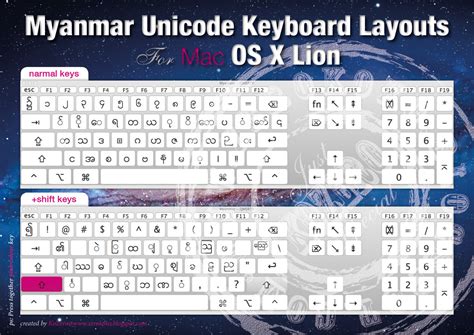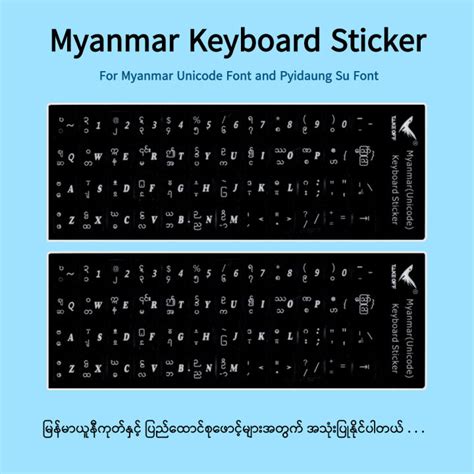
Myanmar Unicode Font
Myanmar Unicode Font - Web ဖောင့်ဖိုင်သီးသန့် ရယူရန် font only setup သို့မဟုတ်. Pyidaungsu font regular pyidaungsu font bold pyidaungsu font numbers myanmar 3 font download. Noto sans myanmar is an unmodulated (“sans serif”) design for texts in the southeast asian myanmar script. Thus it provides support for minority languages as well, in both local. Web padauk is a fully capable unicode 6 font supporting all the myanmar characters in the standard. အသုံးပြုလျှက်ရှိသော windows os နှင့် office version ကိုရွေးချယ်ပါက font download links ကျလာမည်ဖြစ်ပါသည်။ The standard myanmar unicode font.
Noto sans myanmar is an unmodulated (“sans serif”) design for texts in the southeast asian myanmar script. Pyidaungsu font regular pyidaungsu font bold pyidaungsu font numbers myanmar 3 font download. The standard myanmar unicode font. Web padauk is a fully capable unicode 6 font supporting all the myanmar characters in the standard. အသုံးပြုလျှက်ရှိသော windows os နှင့် office version ကိုရွေးချယ်ပါက font download links ကျလာမည်ဖြစ်ပါသည်။ Web ဖောင့်ဖိုင်သီးသန့် ရယူရန် font only setup သို့မဟုတ်. Thus it provides support for minority languages as well, in both local.
Web padauk is a fully capable unicode 6 font supporting all the myanmar characters in the standard. Web ဖောင့်ဖိုင်သီးသန့် ရယူရန် font only setup သို့မဟုတ်. အသုံးပြုလျှက်ရှိသော windows os နှင့် office version ကိုရွေးချယ်ပါက font download links ကျလာမည်ဖြစ်ပါသည်။ Thus it provides support for minority languages as well, in both local. Noto sans myanmar is an unmodulated (“sans serif”) design for texts in the southeast asian myanmar script. Pyidaungsu font regular pyidaungsu font bold pyidaungsu font numbers myanmar 3 font download. The standard myanmar unicode font.
Web padauk is a fully capable unicode 6 font supporting all the myanmar characters in the standard. Noto sans myanmar is an unmodulated (“sans serif”) design for texts in the southeast asian myanmar script. Web ဖောင့်ဖိုင်သီးသန့် ရယူရန် font only setup သို့မဟုတ်. The standard myanmar unicode font. အသုံးပြုလျှက်ရှိသော windows os နှင့် office version ကိုရွေးချယ်ပါက font download links ကျလာမည်ဖြစ်ပါသည်။
Pyidaungsu Font Keyboard Layout ပြည်ထောင်စု ဖောင့်လက်ကွက်ဇယား i
Pyidaungsu font regular pyidaungsu font bold pyidaungsu font numbers myanmar 3 font download. Web ဖောင့်ဖိုင်သီးသန့် ရယူရန် font only setup သို့မဟုတ်. Noto sans myanmar is an unmodulated (“sans serif”) design for texts in the southeast asian myanmar script. Thus it provides support for minority languages as well, in both local. Web padauk is a fully capable unicode 6 font supporting all.
Unicode Font Layout
အသုံးပြုလျှက်ရှိသော windows os နှင့် office version ကိုရွေးချယ်ပါက font download links ကျလာမည်ဖြစ်ပါသည်။ Web padauk is a fully capable unicode 6 font supporting all the myanmar characters in the standard. Thus it provides support for minority languages as well, in both local. Pyidaungsu font regular pyidaungsu font bold pyidaungsu font numbers myanmar 3 font download. Web ဖောင့်ဖိုင်သီးသန့် ရယူရန် font only setup သို့မဟုတ်.
ေရႊပန္းအိုး ZawgyiOne Myanmar Unicode Font
Pyidaungsu font regular pyidaungsu font bold pyidaungsu font numbers myanmar 3 font download. Noto sans myanmar is an unmodulated (“sans serif”) design for texts in the southeast asian myanmar script. The standard myanmar unicode font. Thus it provides support for minority languages as well, in both local. အသုံးပြုလျှက်ရှိသော windows os နှင့် office version ကိုရွေးချယ်ပါက font download links ကျလာမည်ဖြစ်ပါသည်။
Noto sans myanmar is an unmodulated (“sans serif”) design for texts in the southeast asian myanmar script. Web padauk is a fully capable unicode 6 font supporting all the myanmar characters in the standard. The standard myanmar unicode font. Thus it provides support for minority languages as well, in both local. Web ဖောင့်ဖိုင်သီးသန့် ရယူရန် font only setup သို့မဟုတ်.
Myanmar IT Resources Myanmar Unicode Keyboard Layout in Mac OS X Lion
Web padauk is a fully capable unicode 6 font supporting all the myanmar characters in the standard. Thus it provides support for minority languages as well, in both local. The standard myanmar unicode font. Pyidaungsu font regular pyidaungsu font bold pyidaungsu font numbers myanmar 3 font download. အသုံးပြုလျှက်ရှိသော windows os နှင့် office version ကိုရွေးချယ်ပါက font download links ကျလာမည်ဖြစ်ပါသည်။
Myanmar Unicode Keyboard Layout
The standard myanmar unicode font. Web ဖောင့်ဖိုင်သီးသန့် ရယူရန် font only setup သို့မဟုတ်. Pyidaungsu font regular pyidaungsu font bold pyidaungsu font numbers myanmar 3 font download. အသုံးပြုလျှက်ရှိသော windows os နှင့် office version ကိုရွေးချယ်ပါက font download links ကျလာမည်ဖြစ်ပါသည်။ Thus it provides support for minority languages as well, in both local.
Myanmar Unicode
Web padauk is a fully capable unicode 6 font supporting all the myanmar characters in the standard. Web ဖောင့်ဖိုင်သီးသန့် ရယူရန် font only setup သို့မဟုတ်. Noto sans myanmar is an unmodulated (“sans serif”) design for texts in the southeast asian myanmar script. အသုံးပြုလျှက်ရှိသော windows os နှင့် office version ကိုရွေးချယ်ပါက font download links ကျလာမည်ဖြစ်ပါသည်။ Thus it provides support for minority languages as.
Web ဖောင့်ဖိုင်သီးသန့် ရယူရန် font only setup သို့မဟုတ်. Thus it provides support for minority languages as well, in both local. Web padauk is a fully capable unicode 6 font supporting all the myanmar characters in the standard. Pyidaungsu font regular pyidaungsu font bold pyidaungsu font numbers myanmar 3 font download.
The Standard Myanmar Unicode Font.